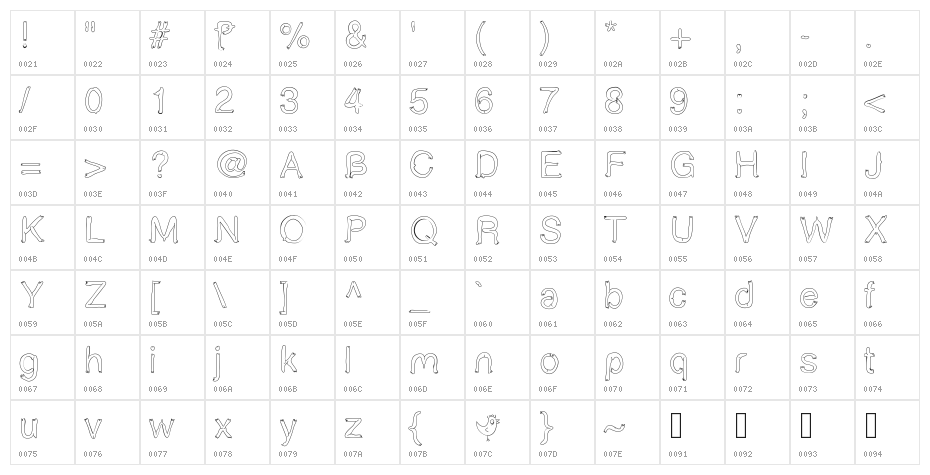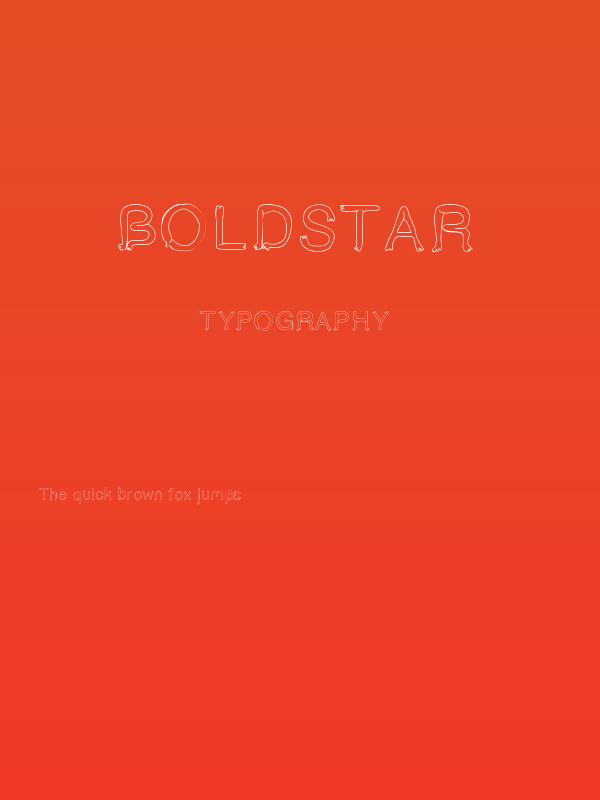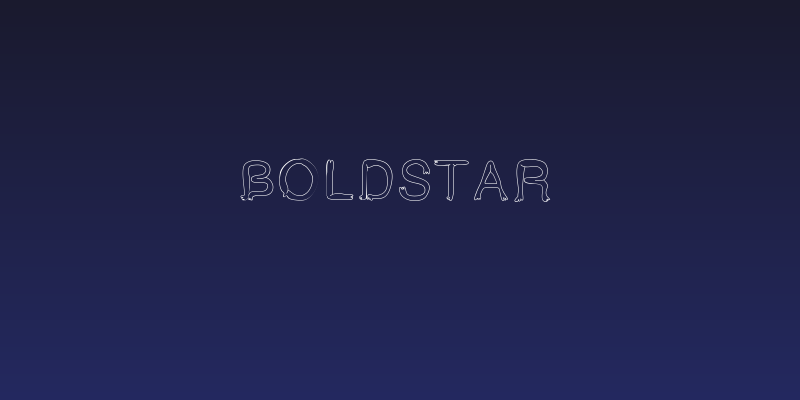
BoldStar Font
| 全体的なスタイル | Whimsical, Playful |
| 用途 | Headlines, Logos, Creative projects |
| おすすめプロジェクト | Ideal for children's books, greeting cards, playful branding, and creative posters. |